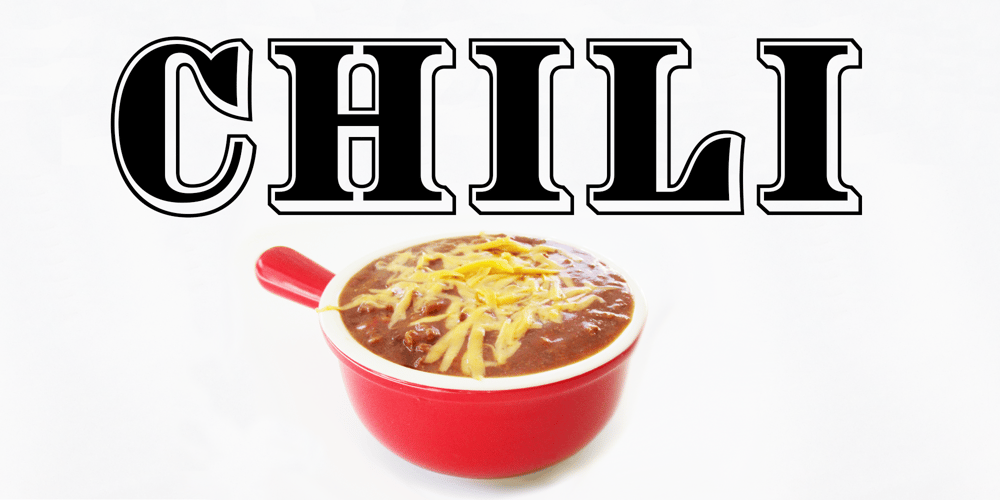
Chili
Chili font
Chili Font Family was designed by Michael Hagemann and published by FontMesa. Chili contains 12 styles and family package options. Chili is a version of our Texas Chili font with the spurs removed.The Chili font family also includes a Unicase i that’s balanced to the weight of the uppercase.You’ll need an application such as Adobe Creative Suite or any other Opentype aware program to access the alternate Unicase i in the Chili font family.Chili is a trademark of Fontmesa LLC